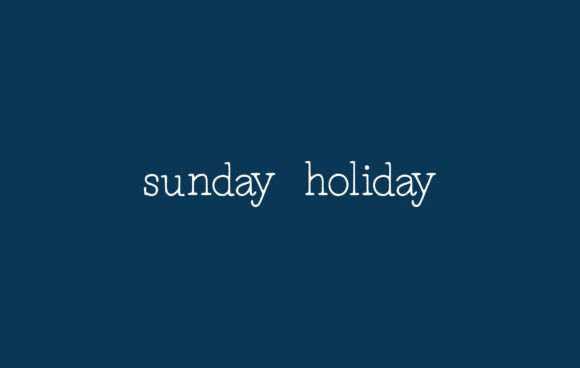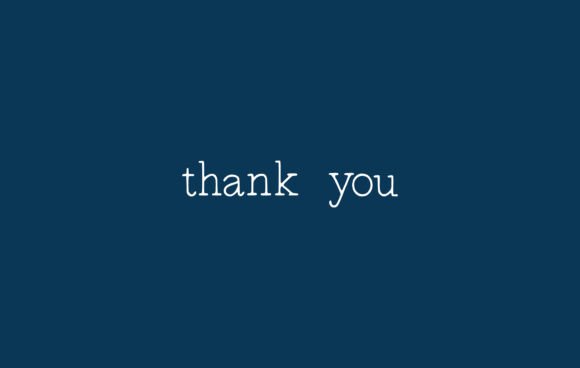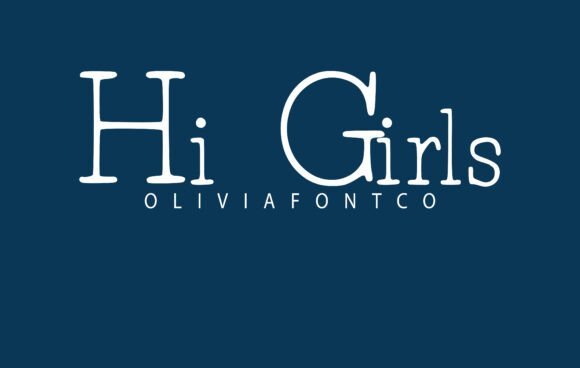
Introduction to Hi Girls Font
Hi Girls font is an authentic handwritten font with a romantic touch.
Key Features of Hi Girls Font
Why Choose Hi Girls Font?